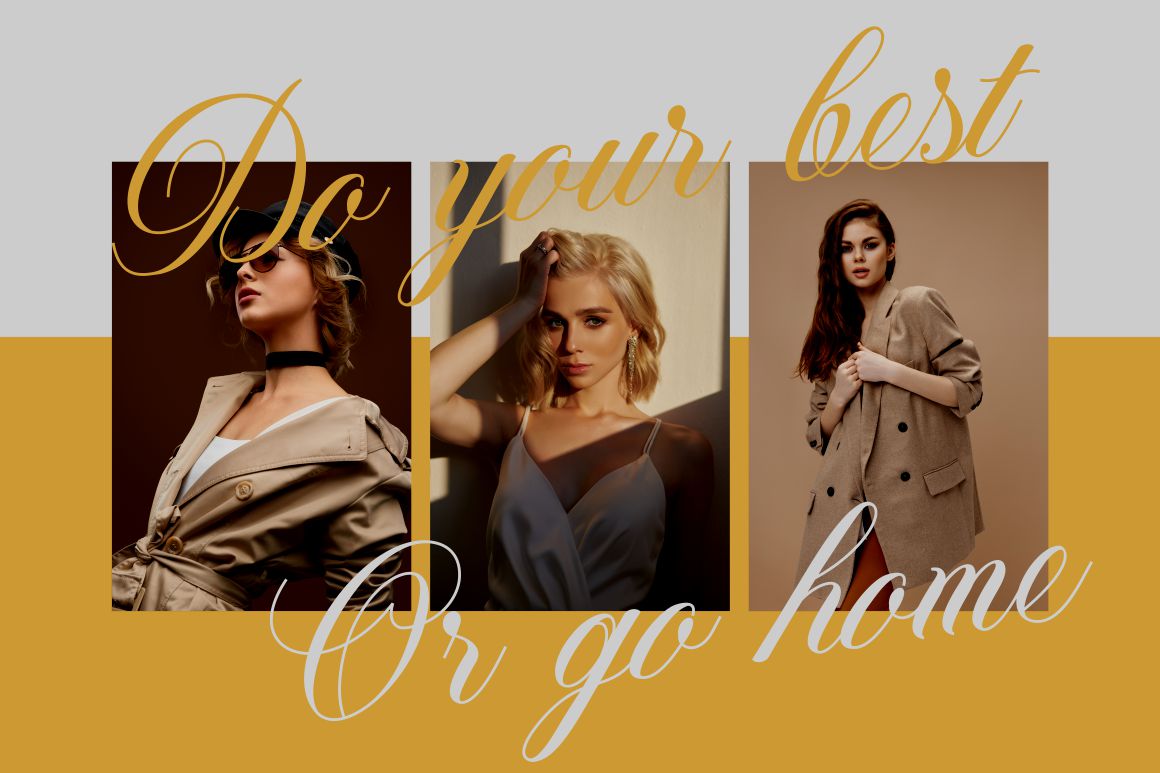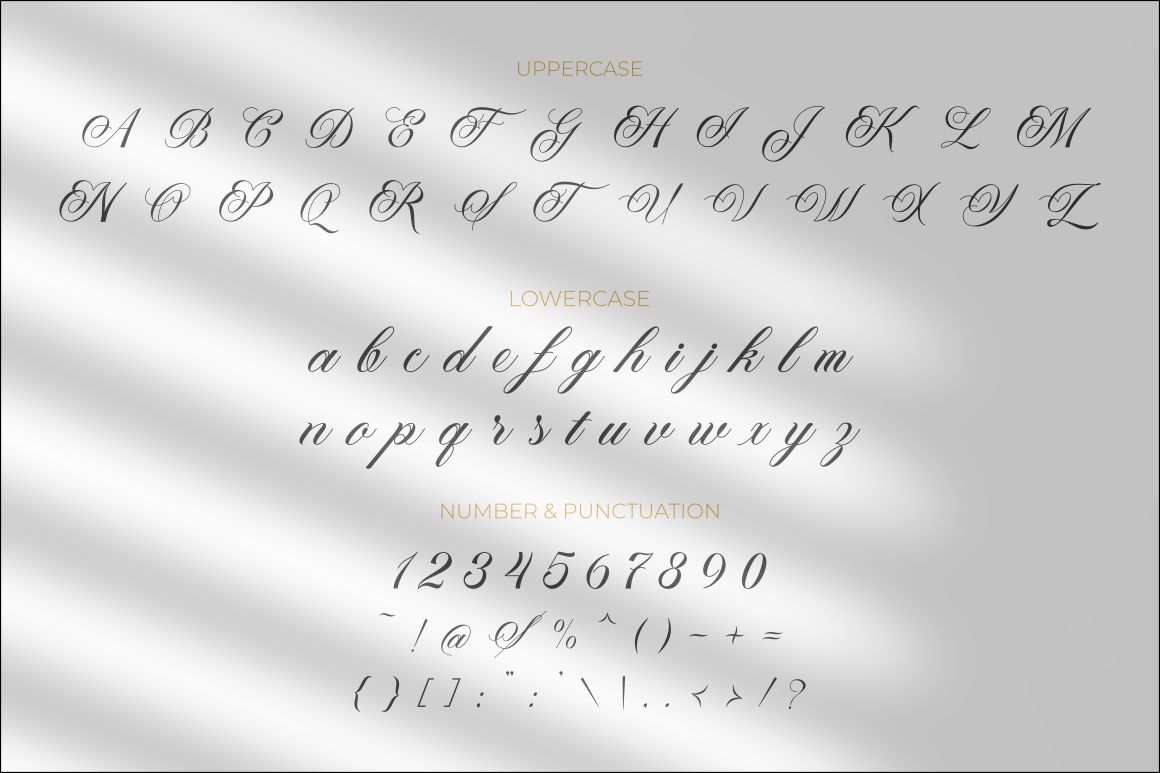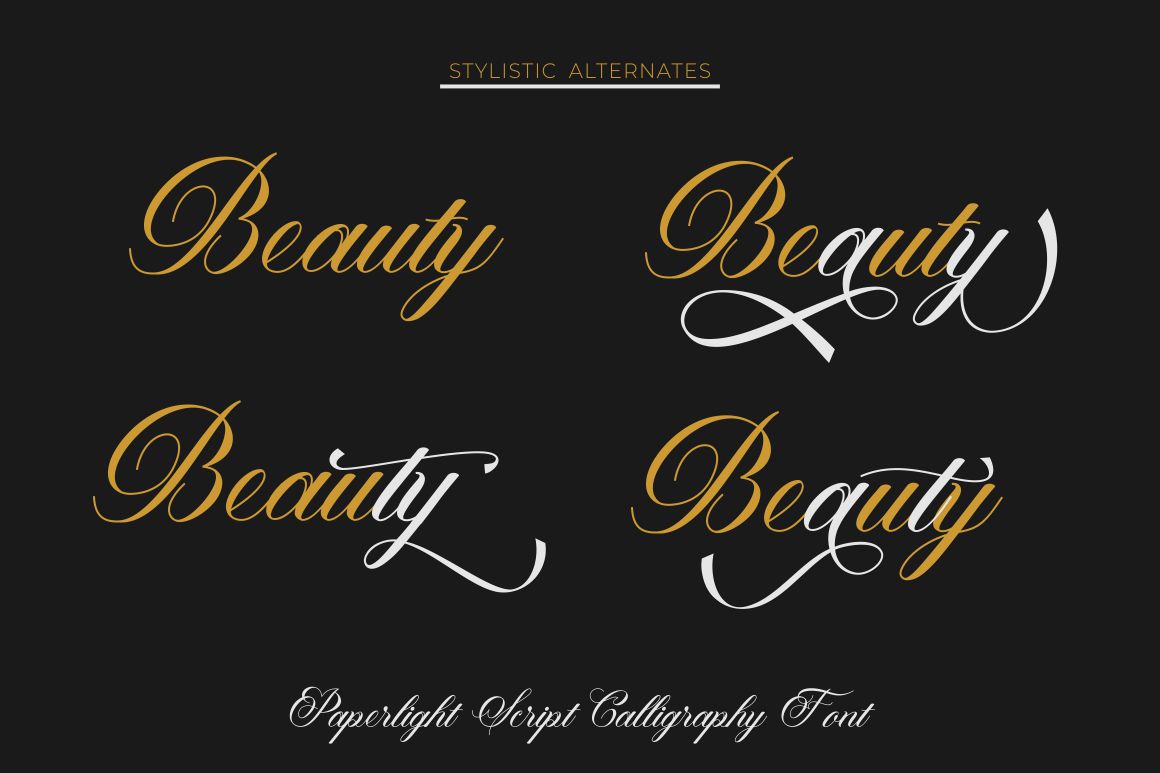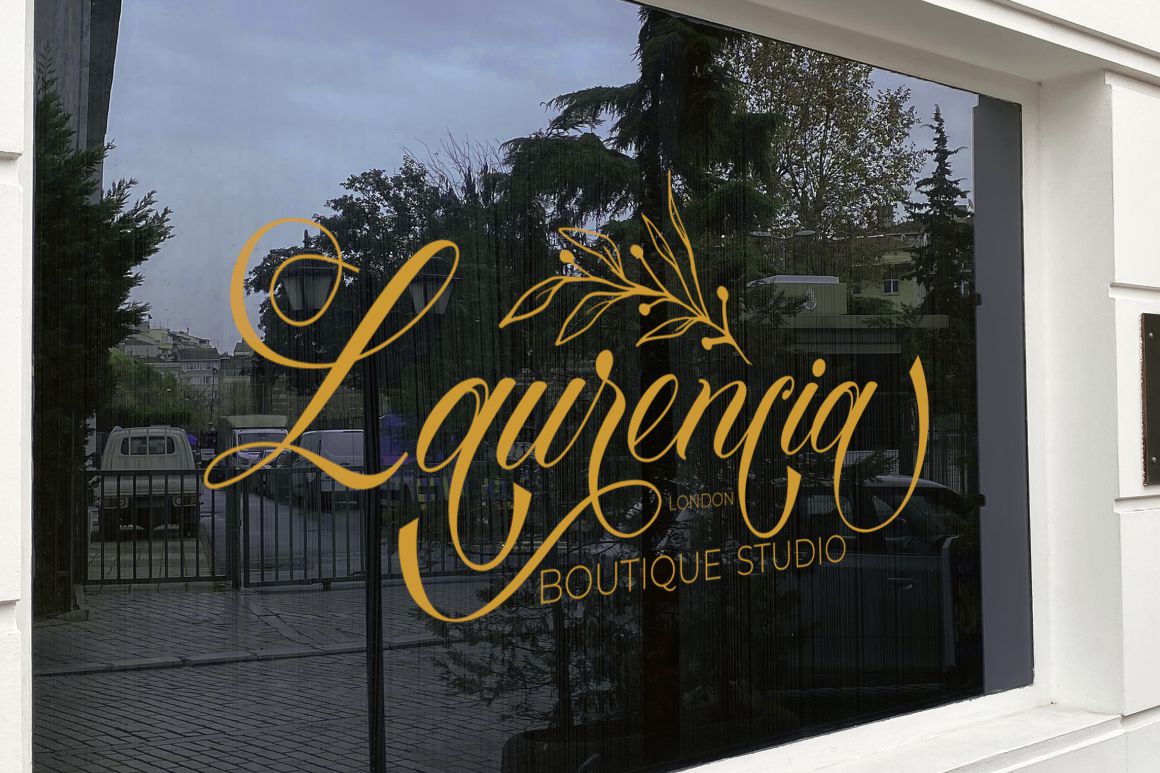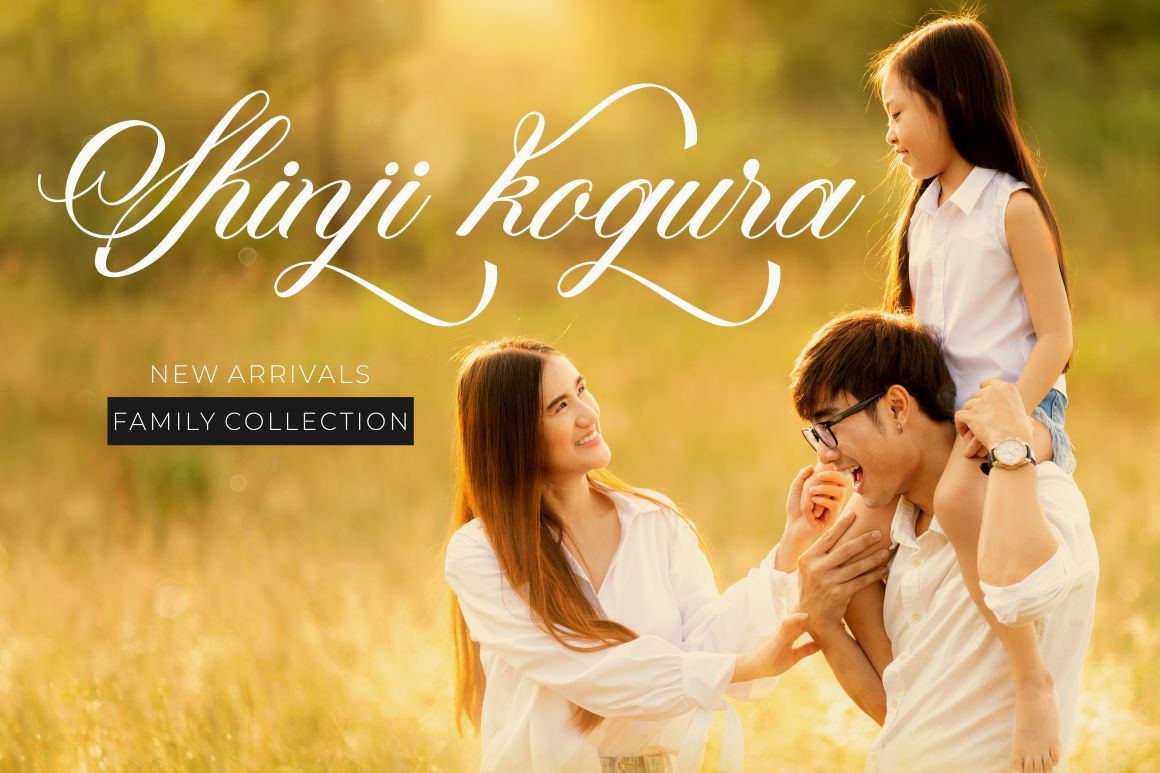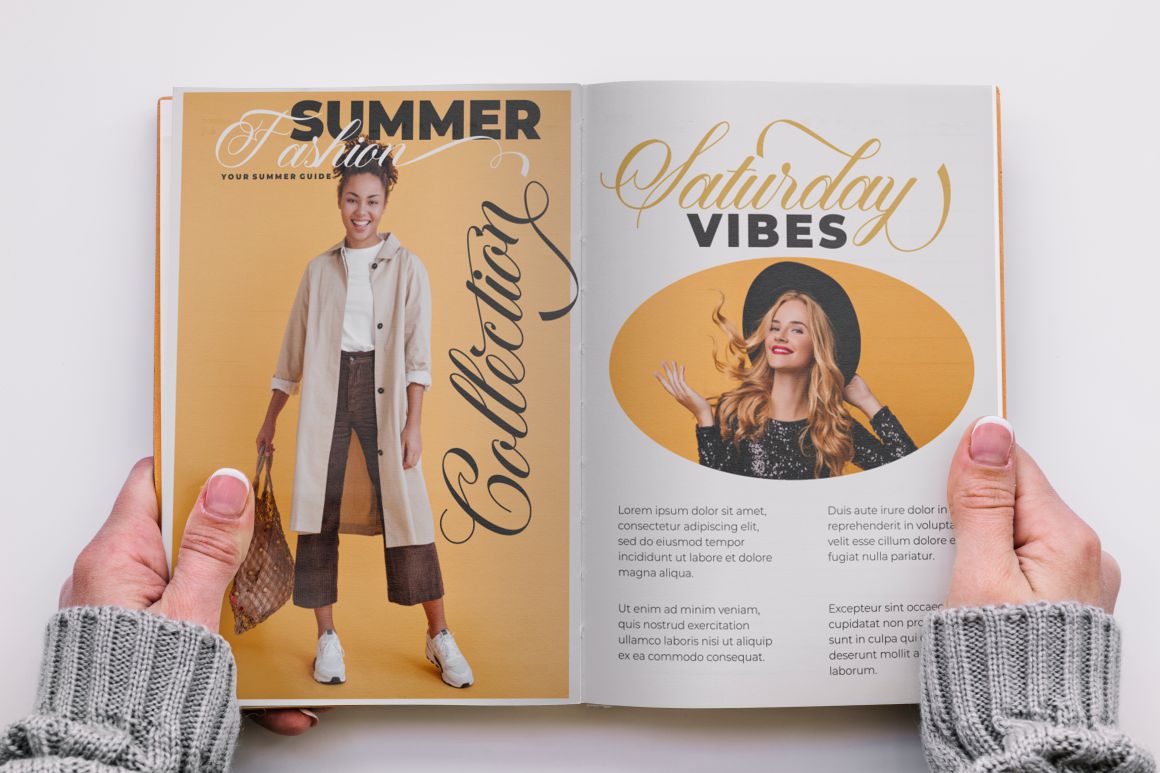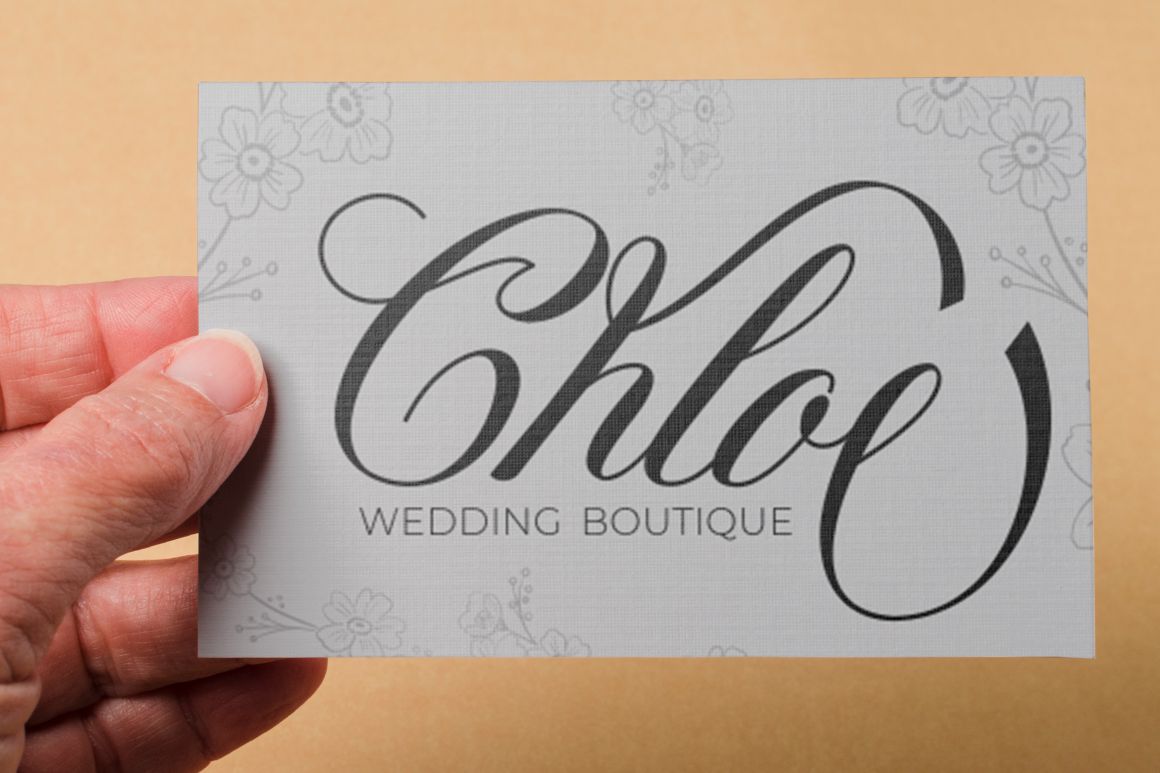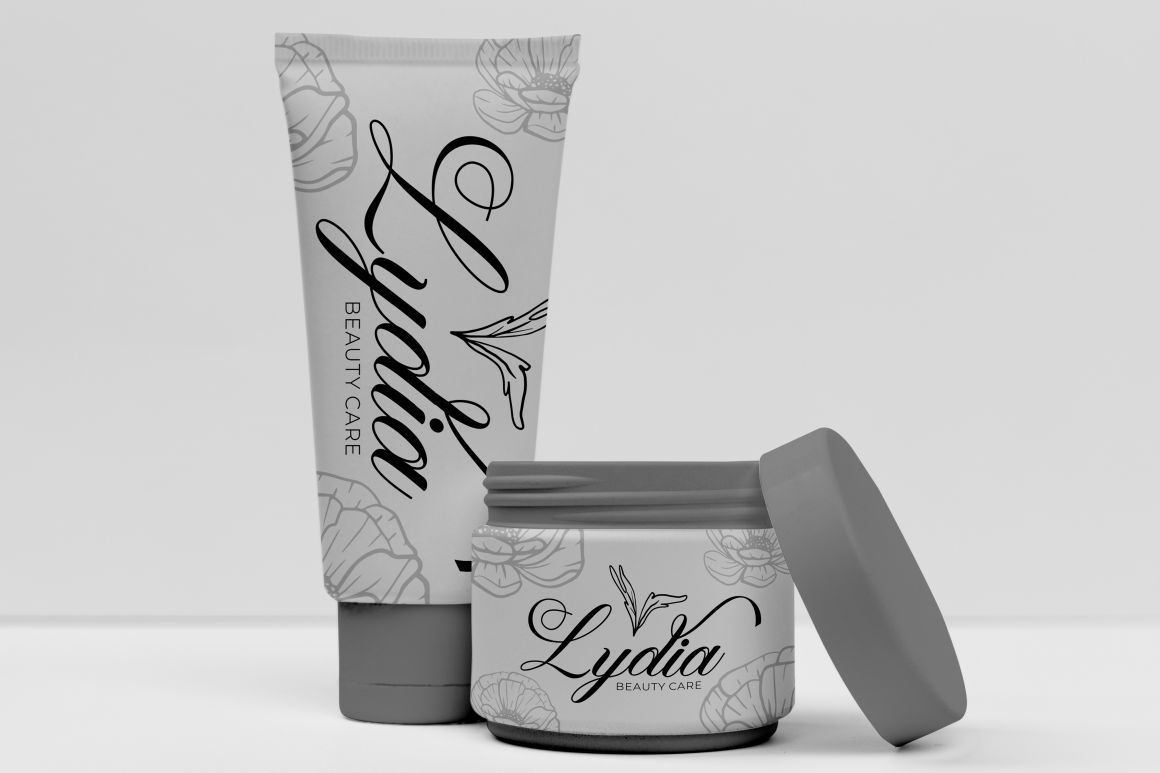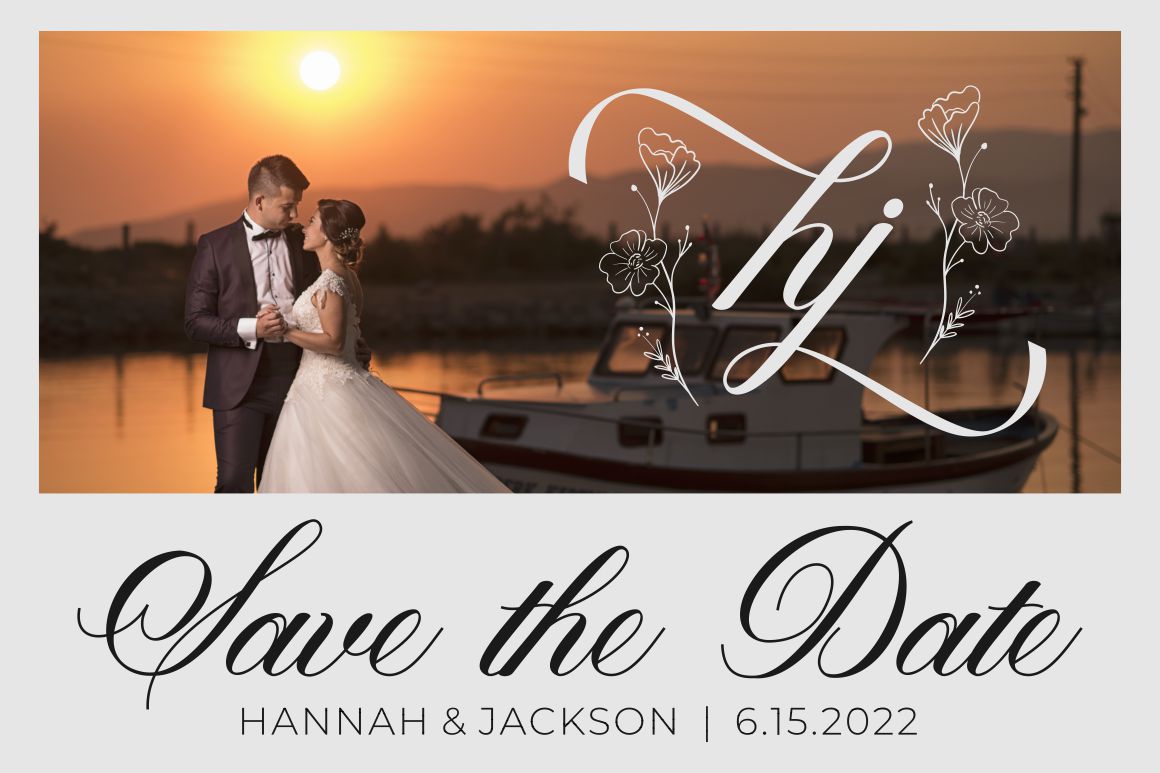
Paperlight Script- Calligraphy Font is a beautiful and elegant handwritten font that will elevate any project with its graceful curves and flowing strokes. Designed by PutraCetol Studio, this font captures the essence of a traditional calligraphy style, while still retaining a modern feel that makes it versatile and usable in a variety of settings.
At first glance, Paperlight Script Calligraphy Font gives the impression of being delicate and light, as if written with a feather pen on a piece of paper. However, upon closer inspection, it becomes clear that the font is also bold and confident, with strong letters and defined strokes. The combination of these two elements creates a unique and eye-catching style that is sure to stand out.
One of the most striking features of Paperlight Script is the fluidity of its lines. Each letter flows seamlessly into the next, creating a sense of movement and energy that draws the eye along the page. The font also includes a wide range of alternate characters and ligatures, which provide even more variety and interest.
Paperlight Script is ideal for a variety of design projects, such as wedding invitations, branding, packaging, logos, and more. It works particularly well in applications that require a personal touch, such as handwritten notes or messages.
The designer has included a full set of uppercase and lowercase letters, numbers, and punctuation, as well as multilingual support. This means that Paperlight Script can be used for projects all around the world, regardless of the language.
In terms of styling, Paperlight Script pairs well with a variety of fonts, both serif and sans-serif. It also looks great with bold colors and muted tones, depending on the project’s desired aesthetic. The font’s versatility and beauty make it an excellent addition to any designer’s toolkit.
In conclusion, Paperlight Script is a stunning and graceful font that will add elegance and sophistication to any project. Its alternate characters make it a versatile choice for a variety of applications. If you’re looking for a beautiful and unique font to elevate your design work, Paperlight Script is definitely worth considering.